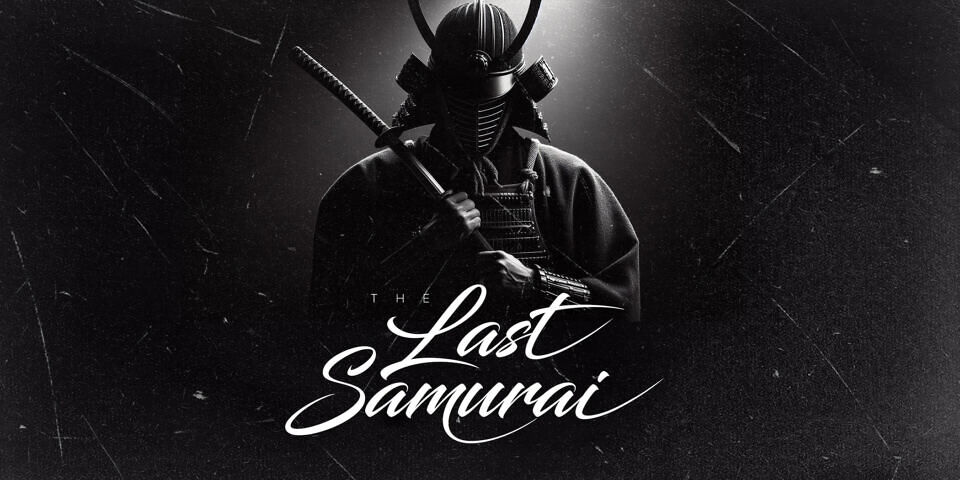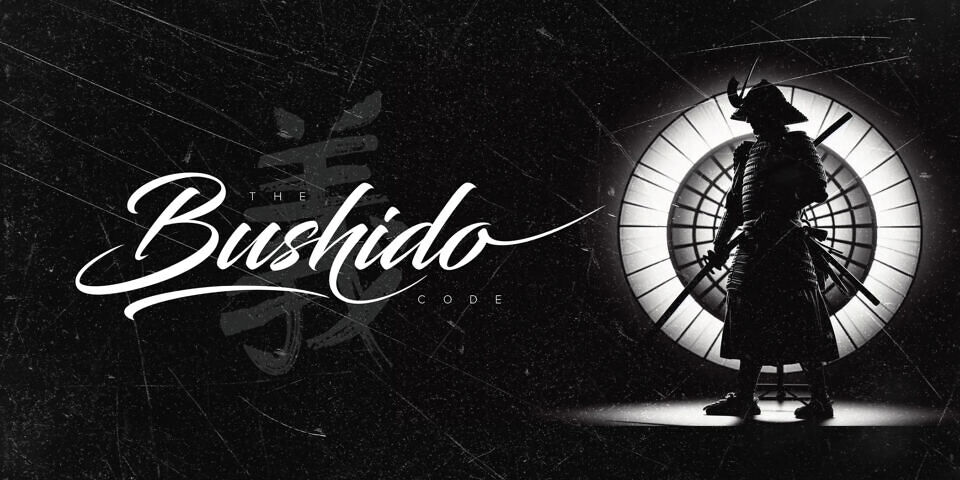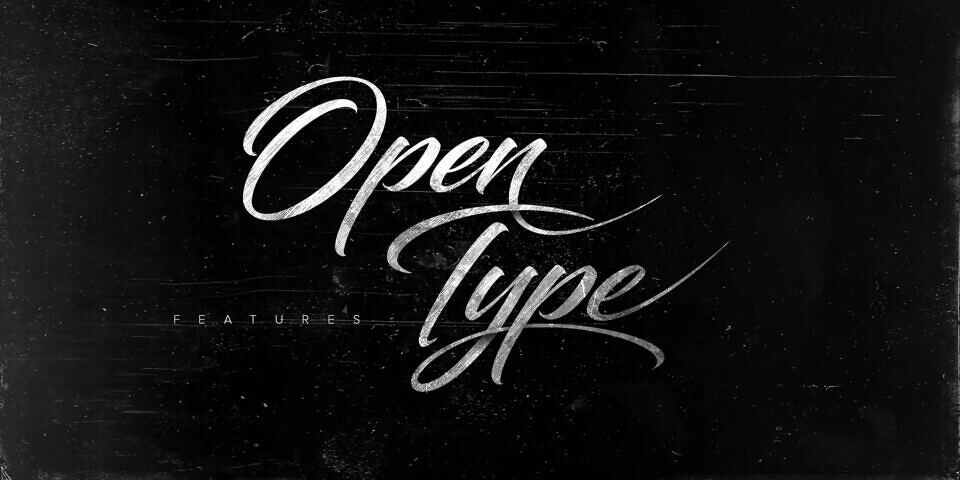
Blacksword Font
Blacksword, designed by Youssef Habchi, is a sharp, contemporary script font that balances elegance with an aggressive edge. Its fluid, sweeping strokes mimic the precision of a blade, featuring elongated terminals and a natural, hand-drawn texture.
Ideal for branding, lifestyle photography, and cinematic titles, the font exudes a sophisticated yet rebellious energy. While its dramatic flourishes command attention in display settings, the clean letterforms maintain surprising legibility for a stylized script.